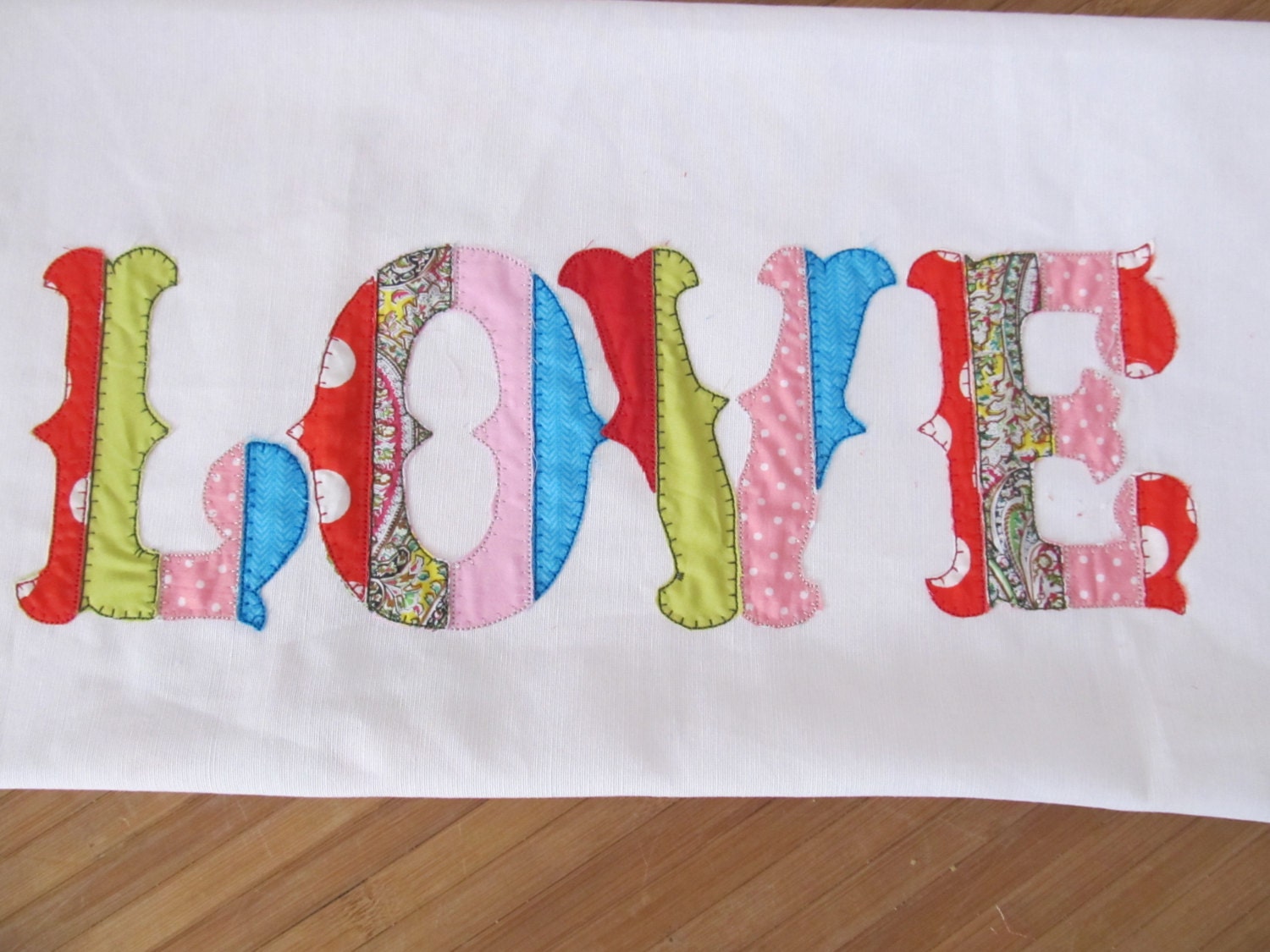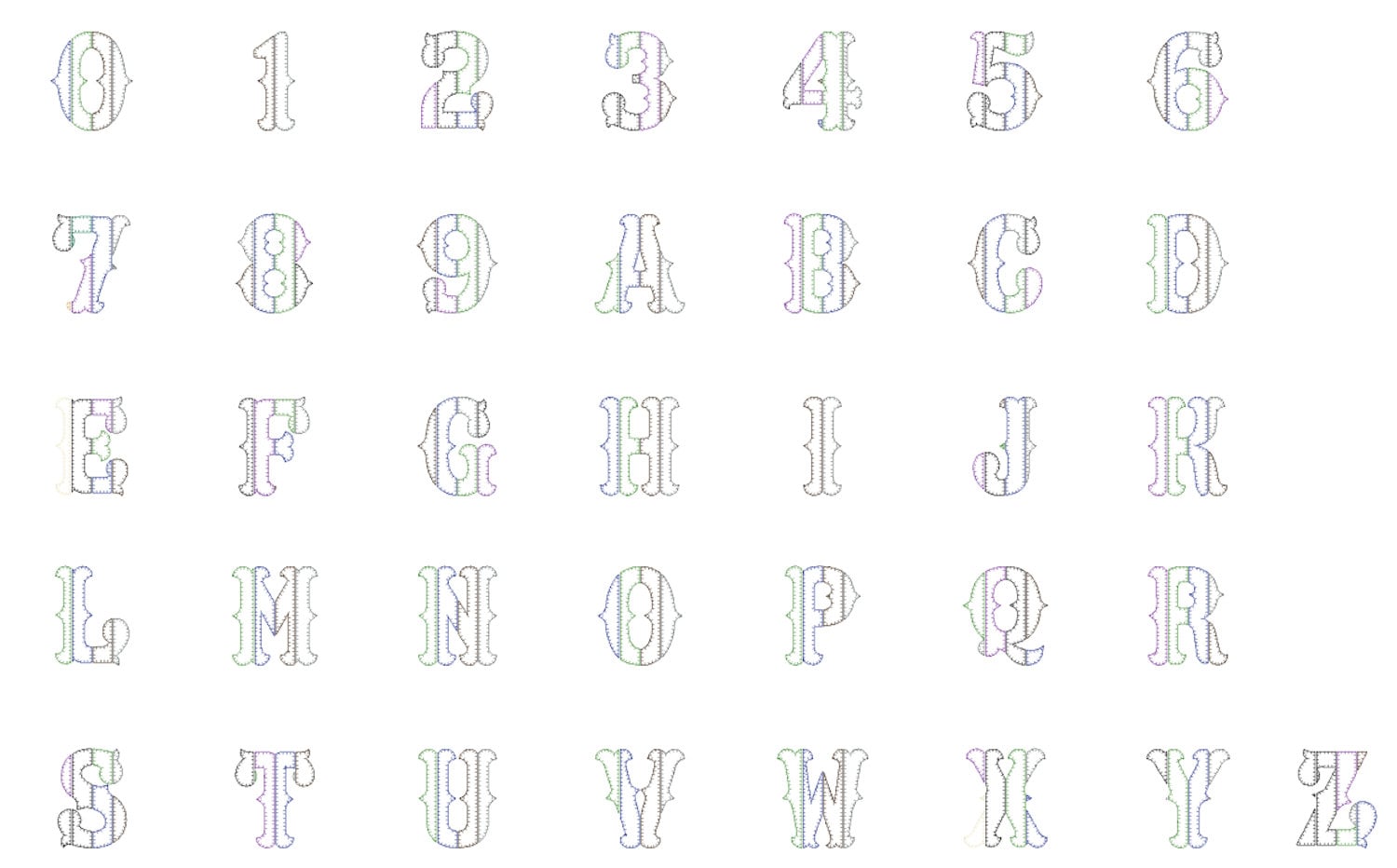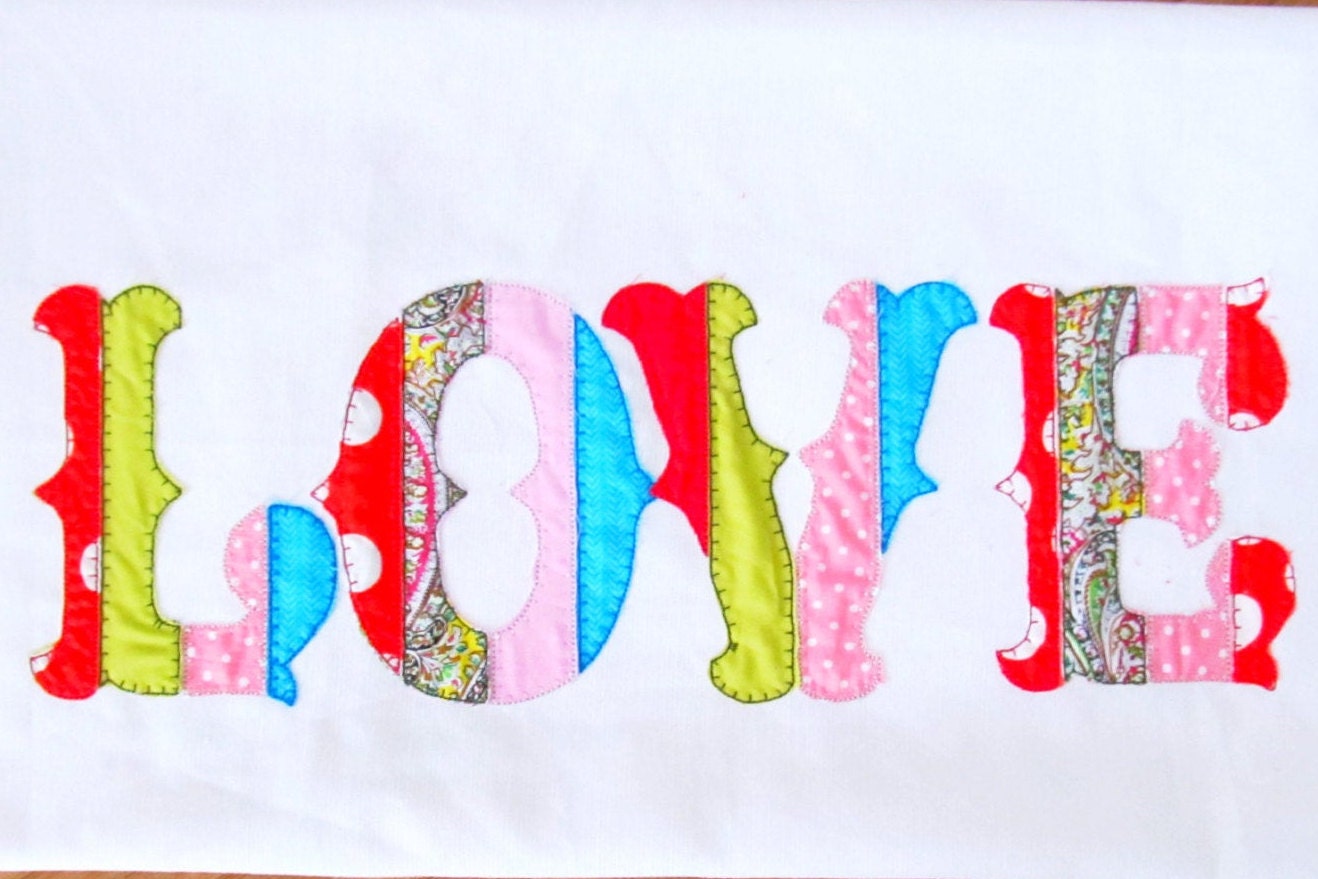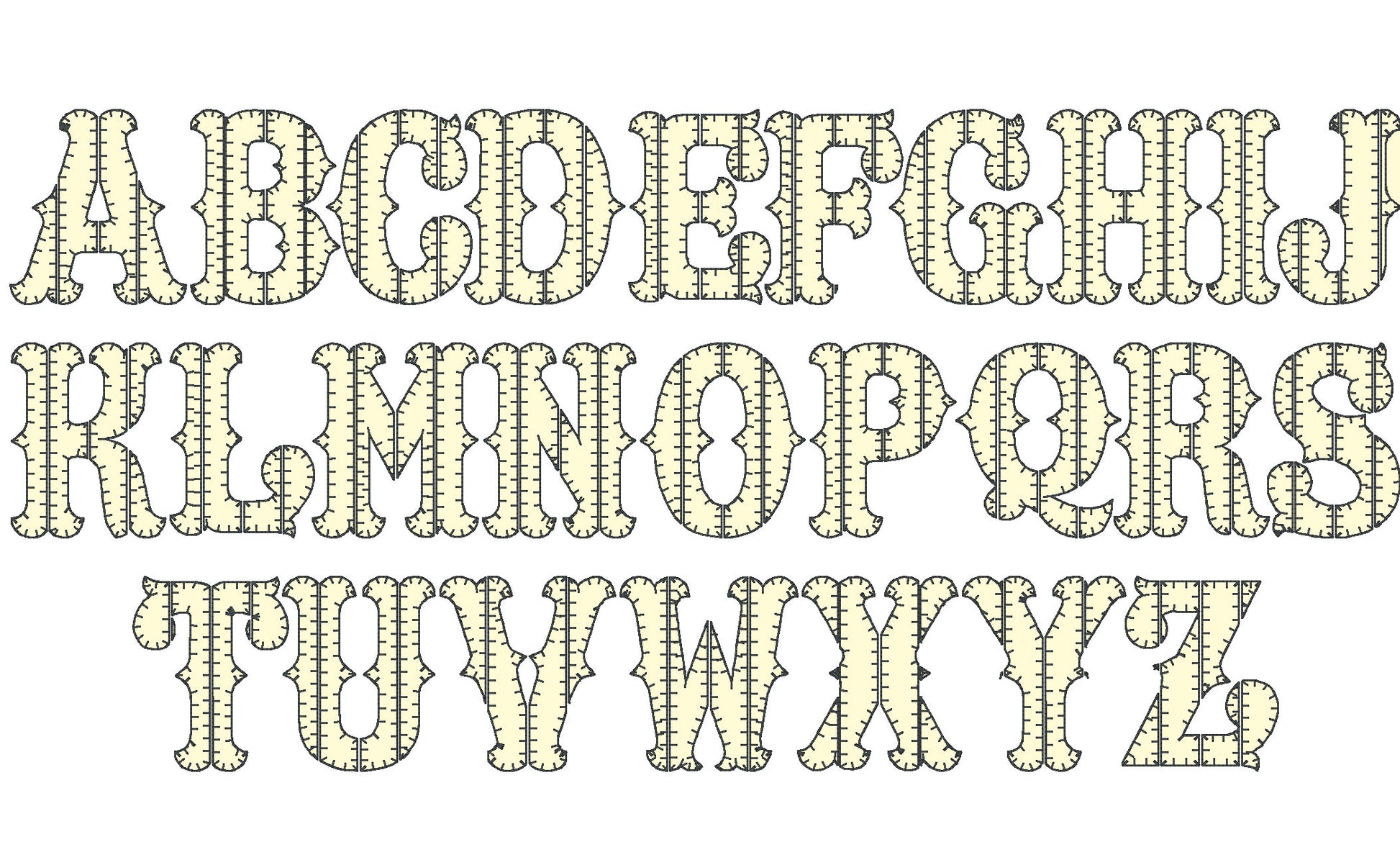
Or click to open the linkA cute patchwork applique font with rag edges, great for using up fabric scraps on quilts, birthday shirts and learning materials.
Each section has its own placement line and tack-down, so you can choose a different fabric for every patch. Capital letters A to Z and numbers 0 to 9 in five sizes: 3, 4, 5, 6 and 7 inches.